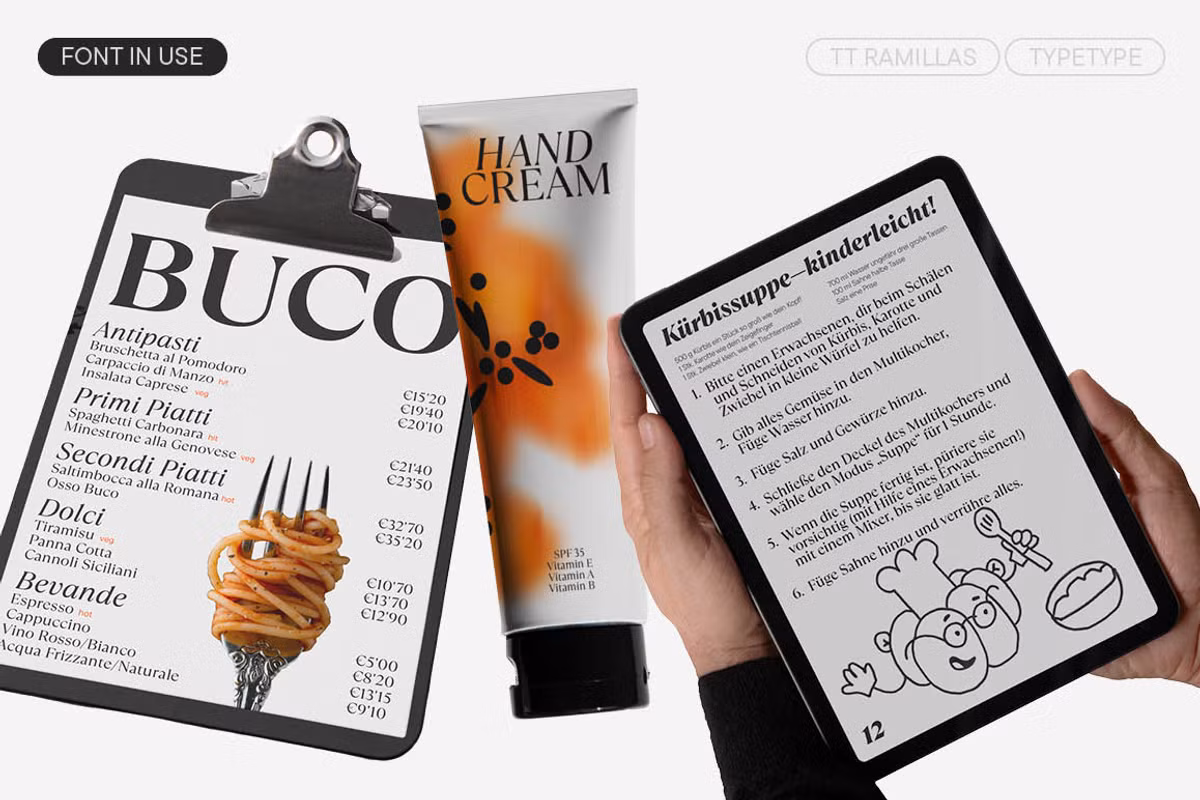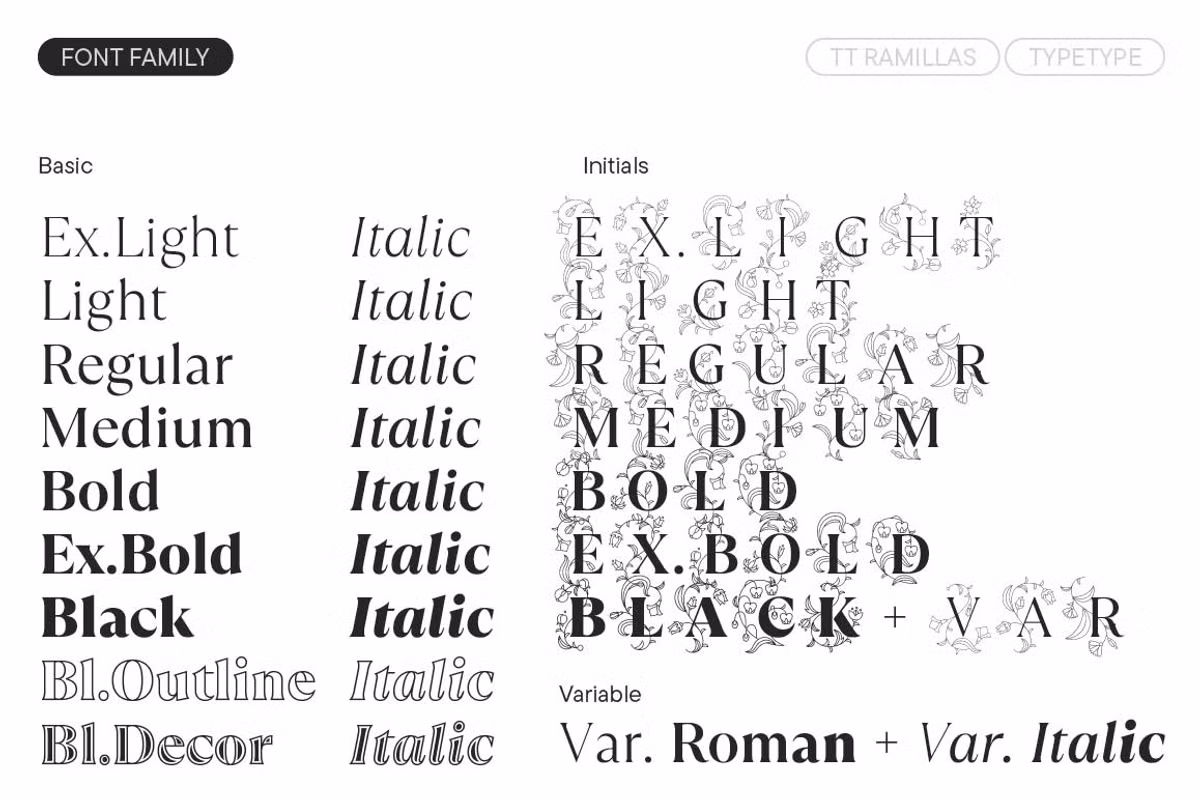
TT Ramillas
TT Ramillas: Modern Transitional Serif Typeface for Elegant Design
Introduction to TT Ramillas
TT Ramillas is a modern typeface that looks great and works well. It’s a mix of old and new, taking classic serif styles and updating them for today’s designs. This new version, 2.000, has some exciting new features that make it perfect for contemporary design projects.
The people who made TT Ramillas were very careful and precise, trying to create a typeface that’s both beautiful and useful. It has a lot of contrast, which means the thick and thin lines are very different, and the serifs are small and flared, which gives it a unique look.
Example of TT Ramillas typeface showcasing its elegant design
TT Ramillas exemplifies modern serif elegance.
The glyphs, or characters, were designed with a lot of thought, making TT Ramillas a great choice for many different design needs. Whether you’re working on a big project or just need a nice font for a small task, TT Ramillas is a good option. It’s elegant, functional, and can be used in many different ways, making it a versatile typeface for designers.
Design Style of TT Ramillas
The design of TT Ramillas is rooted in the principles of transitional serif typefaces, characterized by a sophisticated balance of classic and contemporary elements. The notable visual features of this typeface include:
• High Contrast: The striking contrast between thick and thin strokes enhances readability and adds a touch of elegance.
• Small and Flared Serifs: These design elements provide a gentle transition between strokes, contributing to the overall fluidity of the typeface.
• Variable Slant of Ovals: This unique feature adds personality to the letters, making them stand out in any composition.
• Open Aperture: The open spaces within the letters improve legibility, especially in smaller sizes.
• Absence of Teardrops: This design choice gives TT Ramillas a clean, modern look.
What makes TT Ramillas stand out from other serif typefaces is the unique details in its letters. For example, the flame-like part of the letter “б” and the special ending of the letter “а” give it a distinct look. These details make TT Ramillas a great choice for designers who want to add some originality to their typography.
Detailed view of TT Ramillas letterforms
Unique letterforms enhance TT Ramillas’ originality.
Character Sets and Language Support
One of the key things that makes TT Ramillas special is the huge range of characters it offers. The new version comes with a lot of extra characters, including:
• A wide variety of characters from both the Cyrillic and Latin alphabets, covering all the extra letters and symbols you might need.
• An amplified currency set, including numerators and denominators.
• The introduction of fractions, enhancing its utility in various contexts.
TT Ramillas is great for projects that need to reach people all around the world, since it works with over 230 languages. This means designers can use it for projects in many different languages, like English, Spanish, French, and German.
Use Cases for TT Ramillas
TT Ramillas is a versatile typeface suitable for a variety of applications. Here are some prominent use cases:
• Fashion and Art Magazines: The elegant design and high contrast of TT Ramillas make it perfect for editorial layouts, capturing the attention of readers.
• Branding Premium Goods: The sophistication of TT Ramillas adds a touch of luxury to branding, making it ideal for high-end products and services.
• Web Design: Thanks to its manual TrueType hinting, TT Ramillas excels in digital formats, ensuring legibility on various screens.
The decorative subfamilies, like Outline and Decor, are perfect for making headlines stand out, and they’re still easy to read even in smaller chunks of text. This makes them really versatile, so you can use them to grab attention with headlines, but also to add some visual interest to shorter paragraphs or blocks of text.
TT Ramillas used in editorial layout
TT Ramillas enhances editorial layouts with elegance.
Pairing Suggestions for TT Ramillas
When it comes to typography, pairing fonts effectively can enhance your design’s visual hierarchy and aesthetic appeal. Here are some pairing suggestions for TT Ramillas:
• Sans Serif Fonts: Pair TT Ramillas with modern sans serif fonts like TT Octosquares or TT Norms Pro. The contrast between the serif and sans serif will create a dynamic visual experience.
• Display Fonts: Consider pairing TT Ramillas with display fonts like TT Espina for headings. The combination can provide a striking contrast while maintaining an elegant look.
It’s sophisticated, easy to read, and works well in many different situations. The people who made this typeface thought about what designers need, and they included a lot of features that make it useful for many languages. This means that TT Ramillas can help you make your design projects look great and communicate your message clearly, no matter what kind of project you’re working on. With its unique look and many uses, TT Ramillas is a great tool for designers who want to make a good impression. It’s perfect for anyone who wants to add a touch of class to their designs and make them stand out.